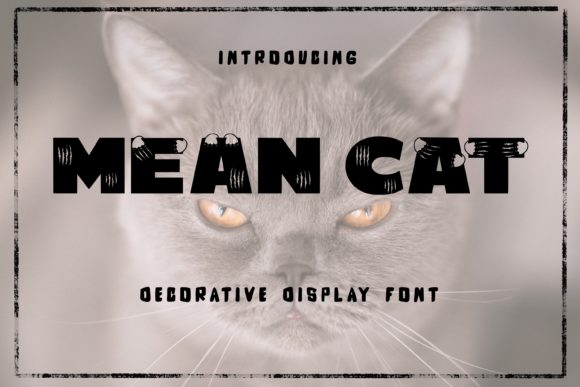
Indulge in the captivating world of Mean Cat Font, where whimsy meets boldness! Step into a realm of imagination, where your creations will leave an indelible mark.
Our Mean Cat Font is a purr-fect blend of mischief and delight, crafted to ignite your designs. Its playful curves and sharp angles dance together, creating a unique and captivating character. Each stroke whispers a tale of feline charm, inviting you to explore a world where anything is possible.
Whether you're a seasoned artist or just starting your creative journey, Mean Cat Font is your purr-fect companion. Unleash your inner feline with this captivating font, and watch your creations come alive with a captivating allure that will leave your audience spellbound.
Whether you're crafting invitations for a special occasion or creating eye-catching logos, Mean Cat Font adds a touch of playful elegance to every design. Its decorative nature makes it the purr-fect choice for artwork related to cats, but don't let that limit your imagination. Mean Cat Font is a versatile companion, ready to elevate any creative endeavor.